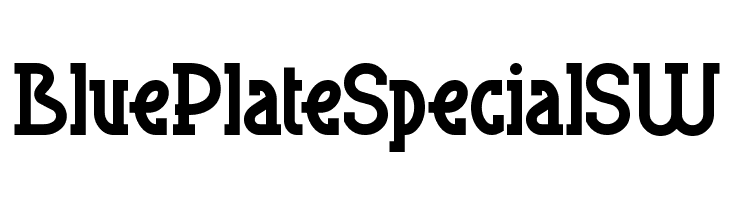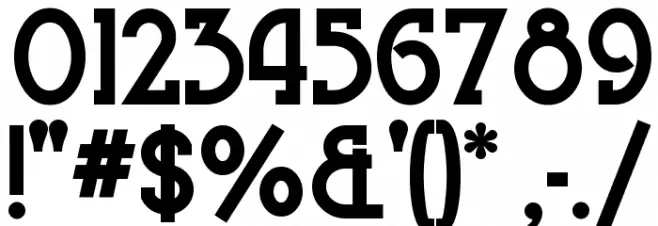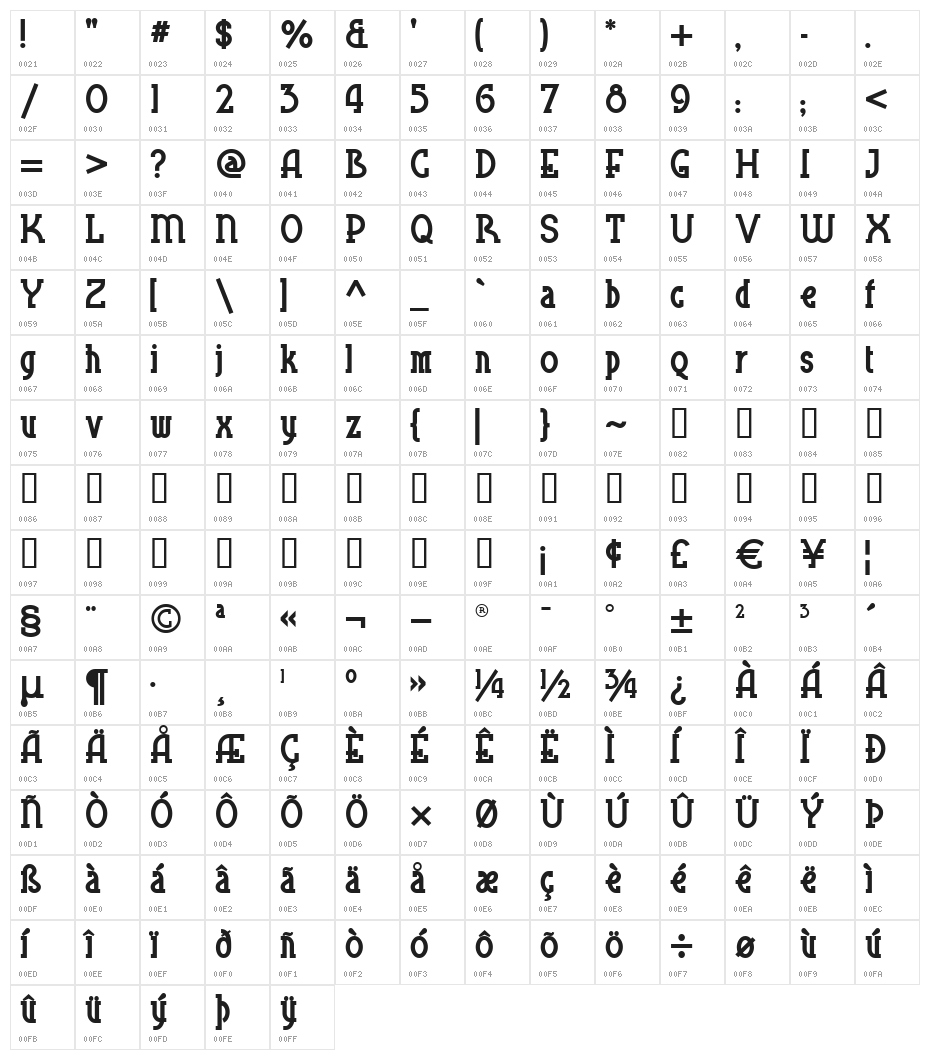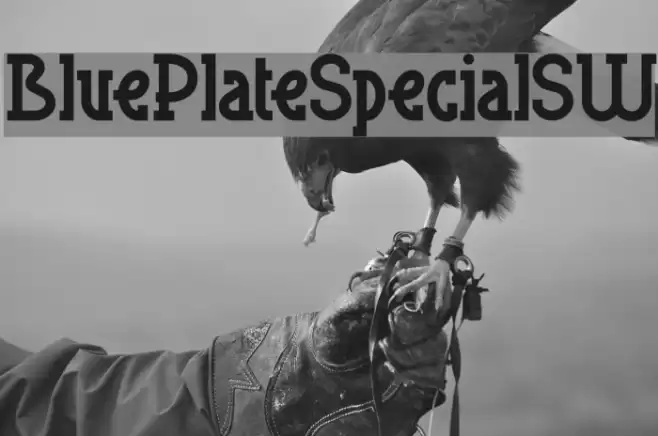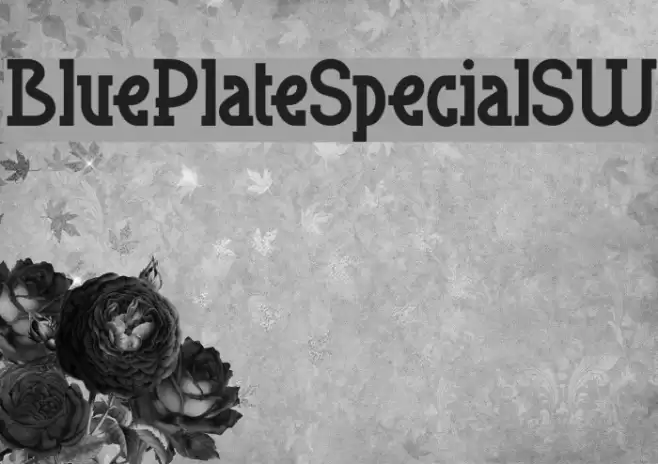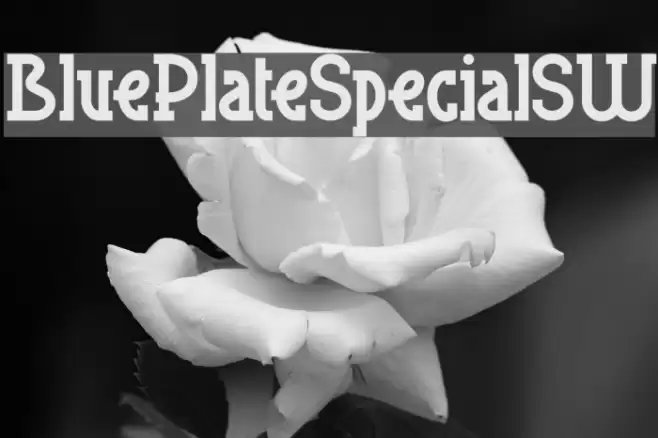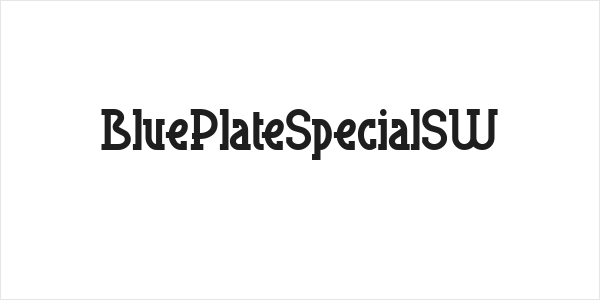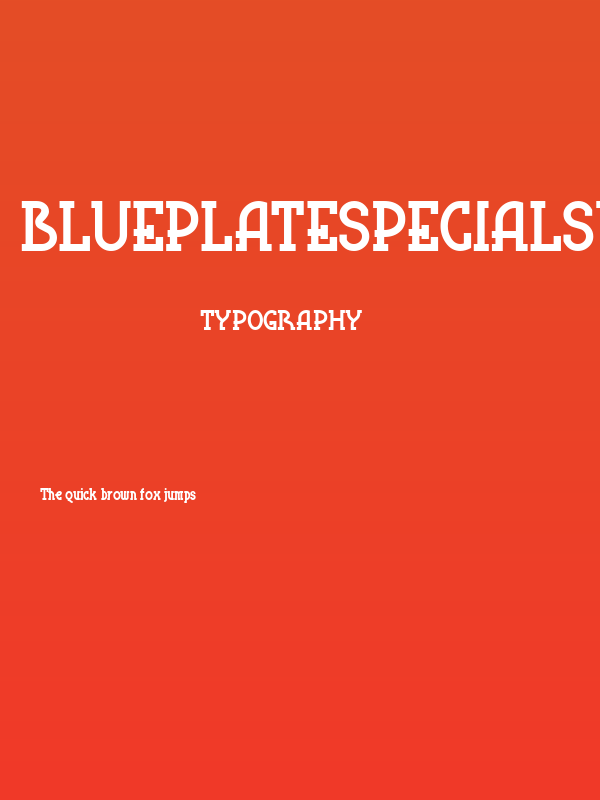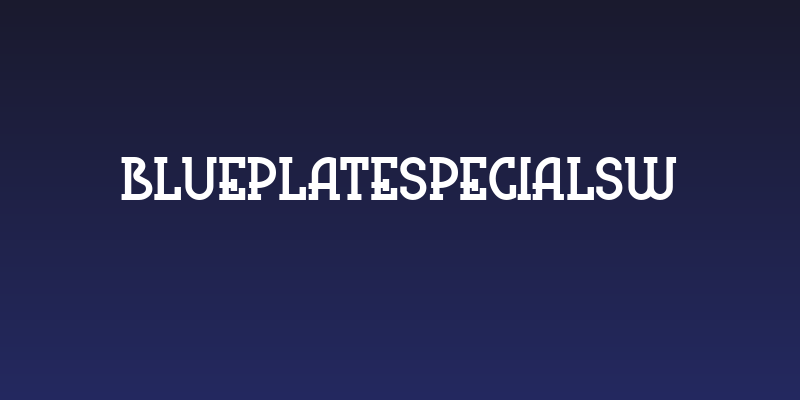
BluePlateSpecialSW Font
BluePlateSpecialSW Description
This font features a bold and robust design with a distinctive slab serif style. The characters are characterized by their thick, block-like serifs and strong vertical lines, giving them a sturdy and impactful appearance. The uppercase letters have a uniform height, while the lowercase letters maintain a consistent baseline with slightly rounded edges. The numerals are bold and easily readable, complementing the overall design. Special characters are crafted with the same attention to detail, ensuring visual harmony across all glyphs. This font's unique style makes it suitable for projects that require a strong and memorable typographic presence.
| Proposed Projects | Ideal for branding, poster design, headlines, and any project requiring a bold typographic statement. |